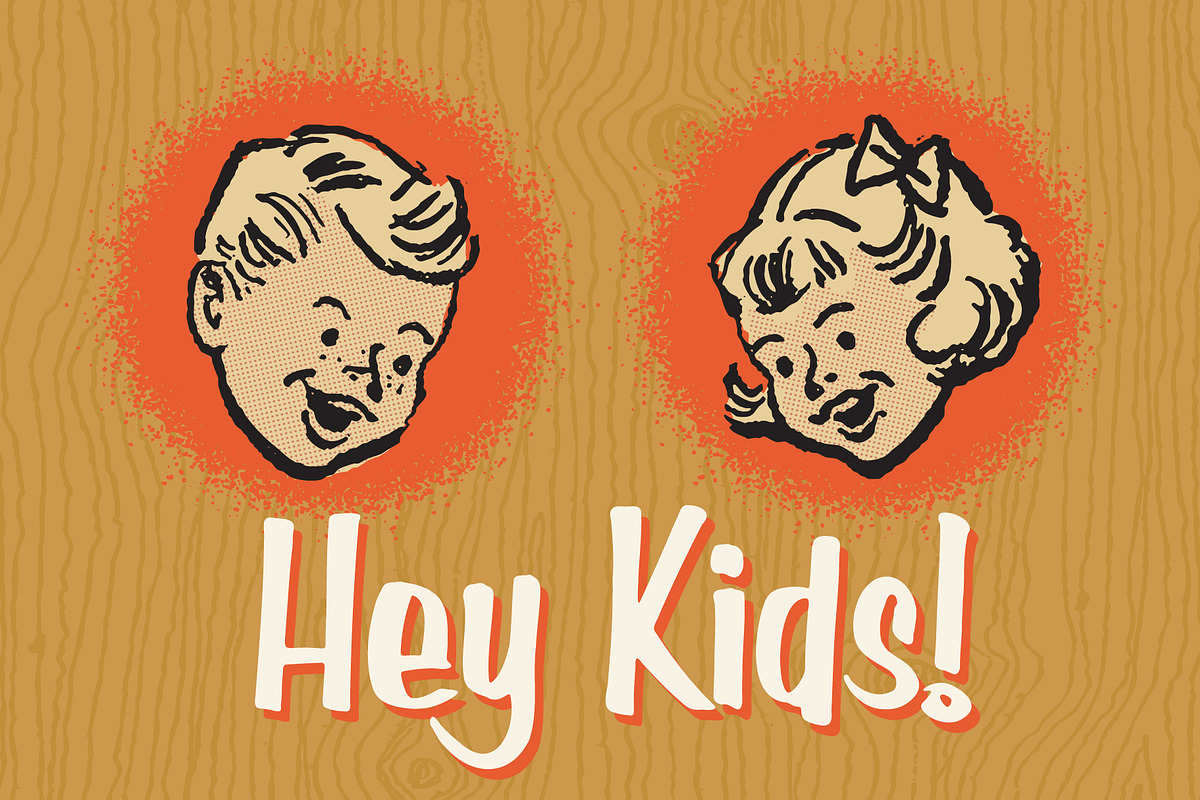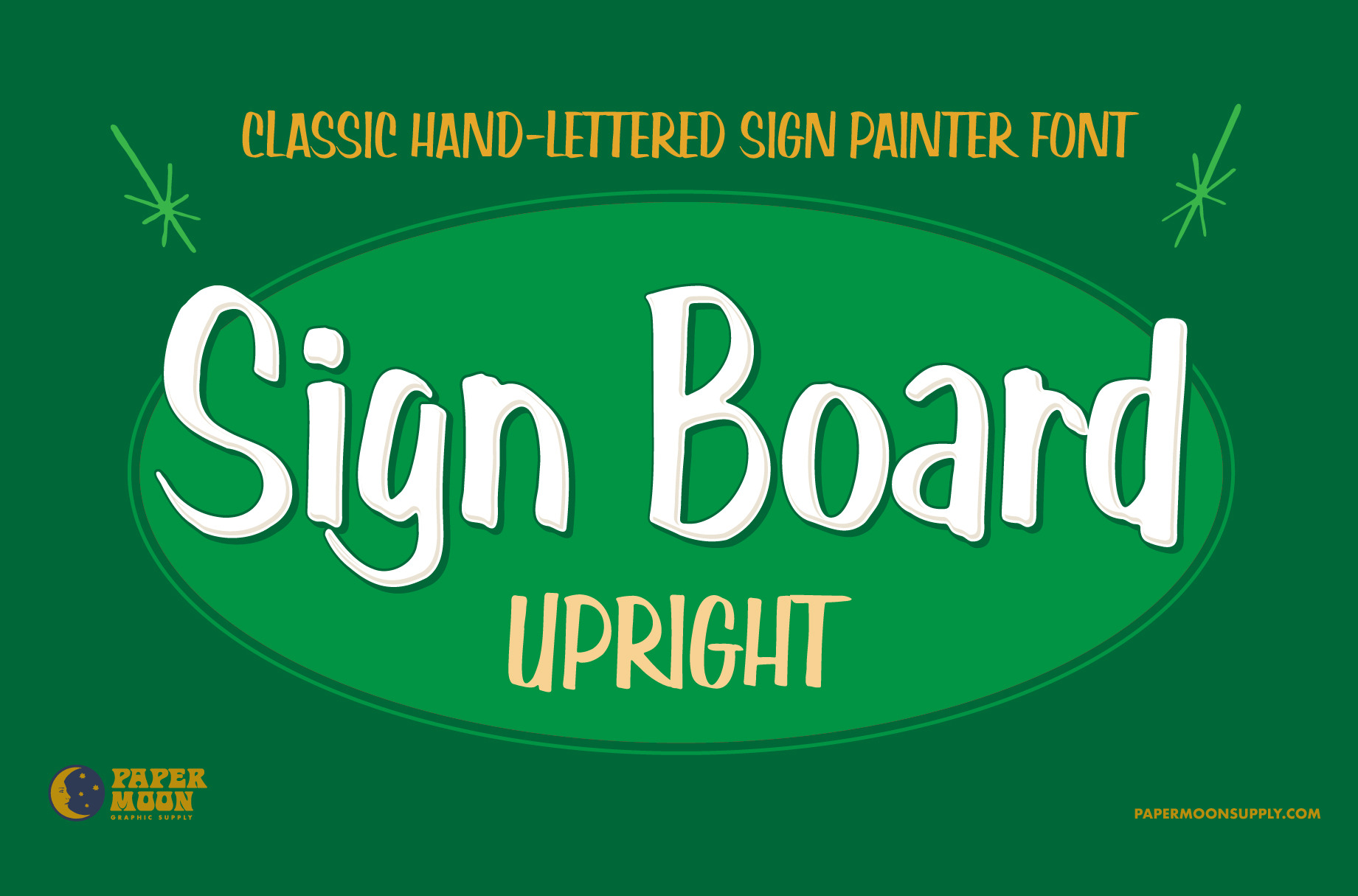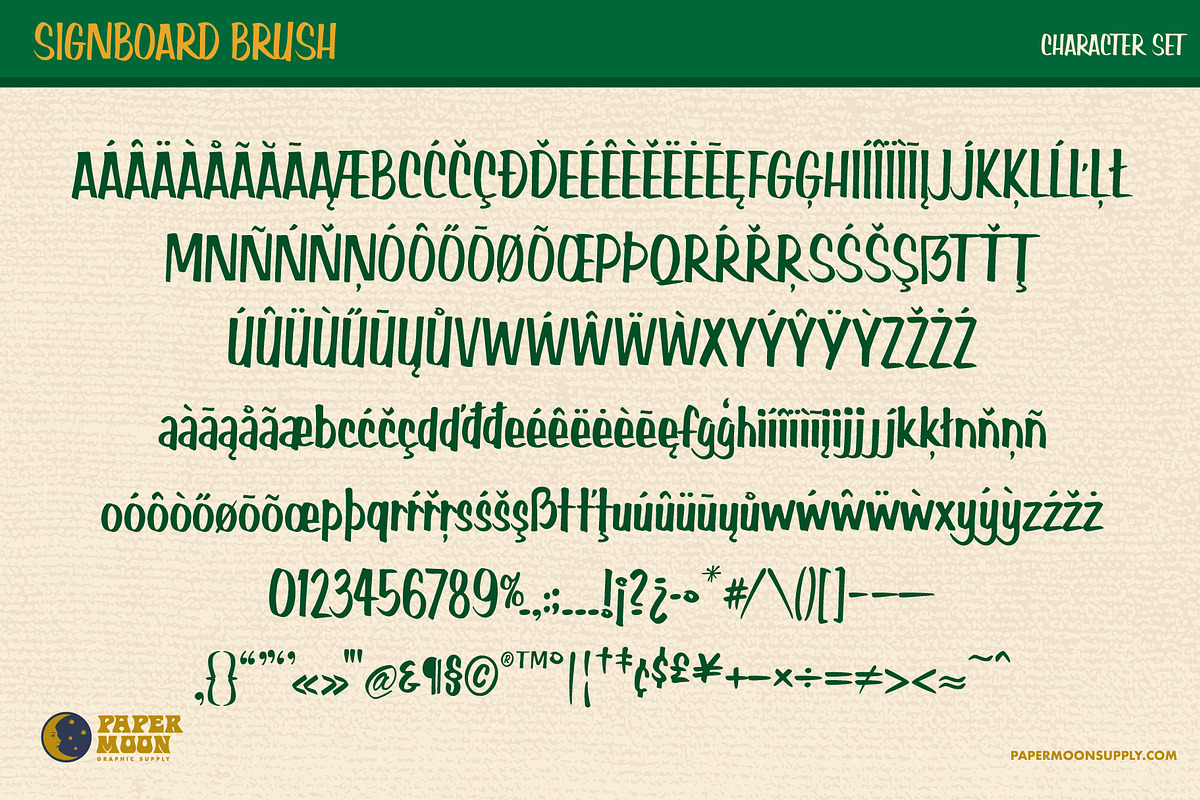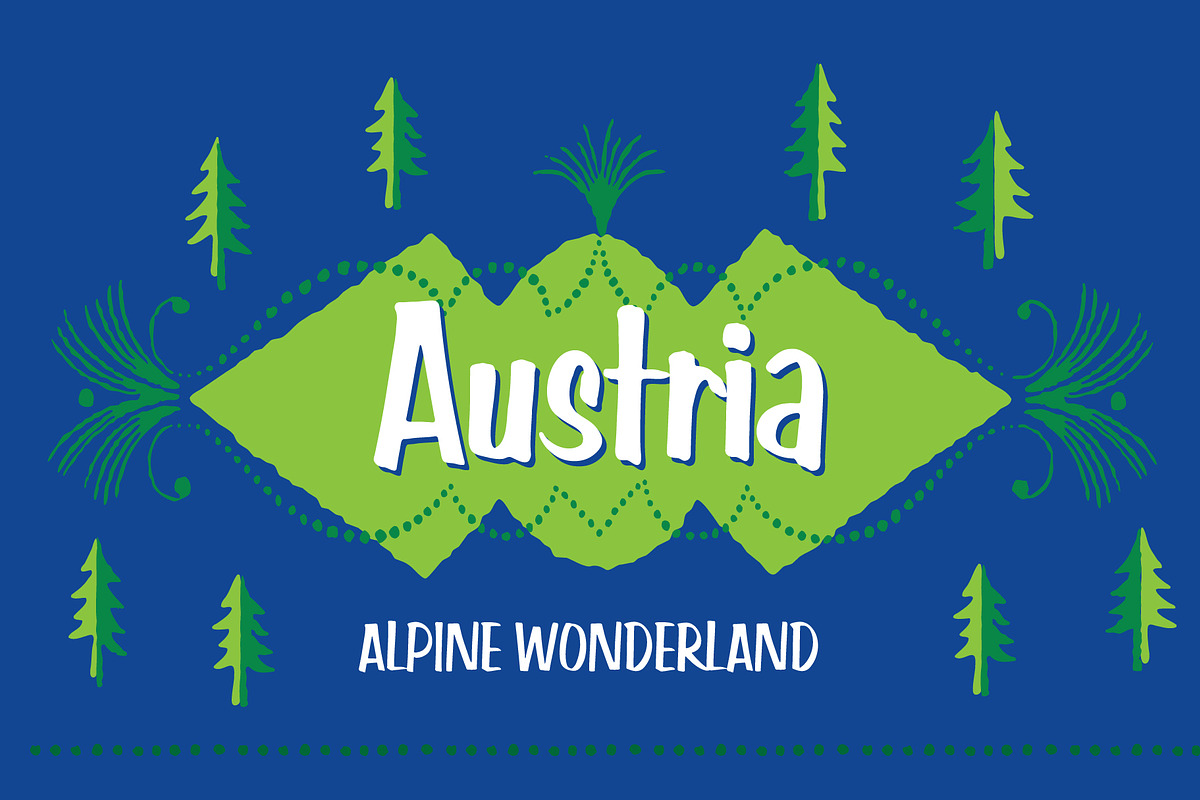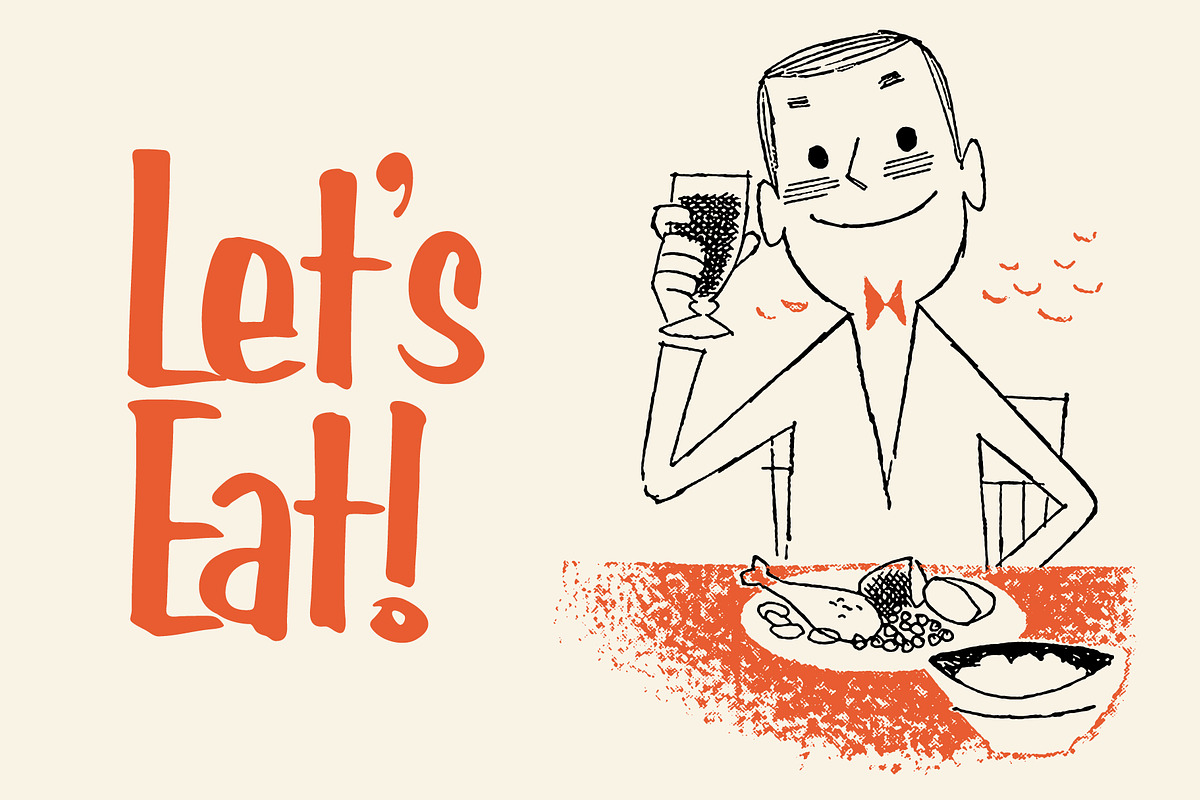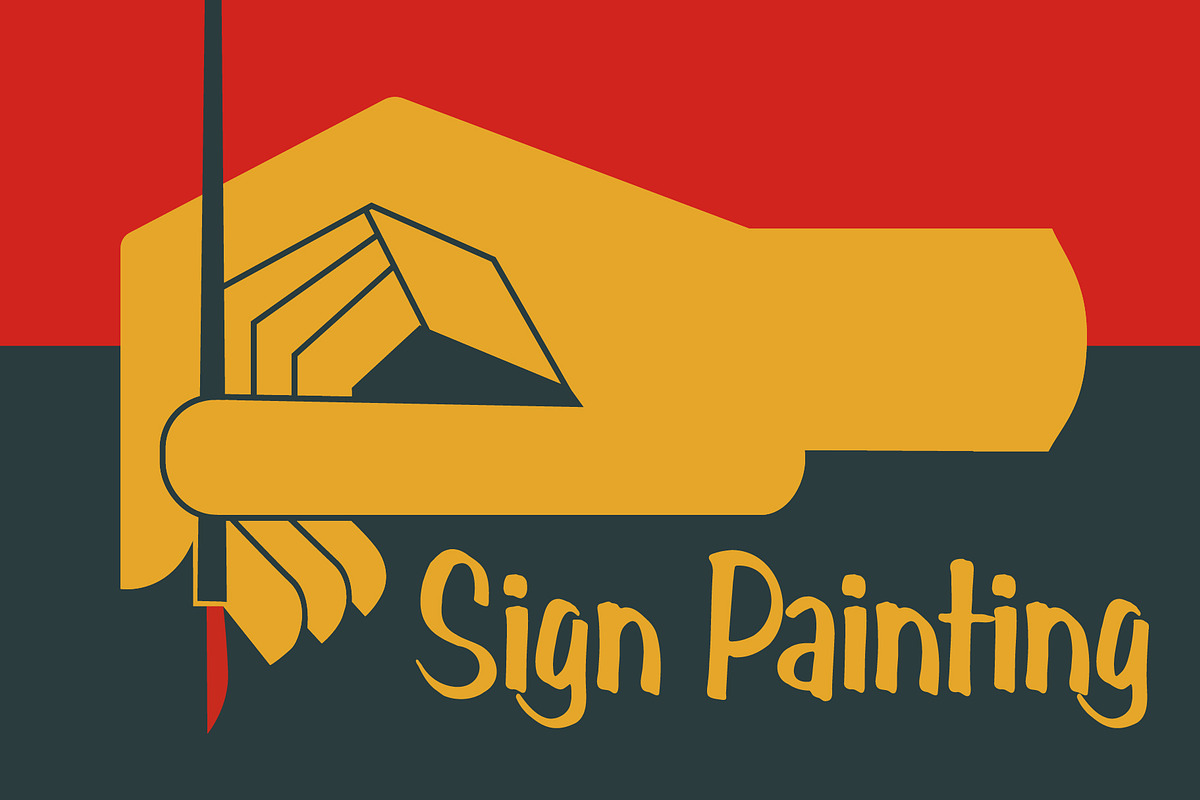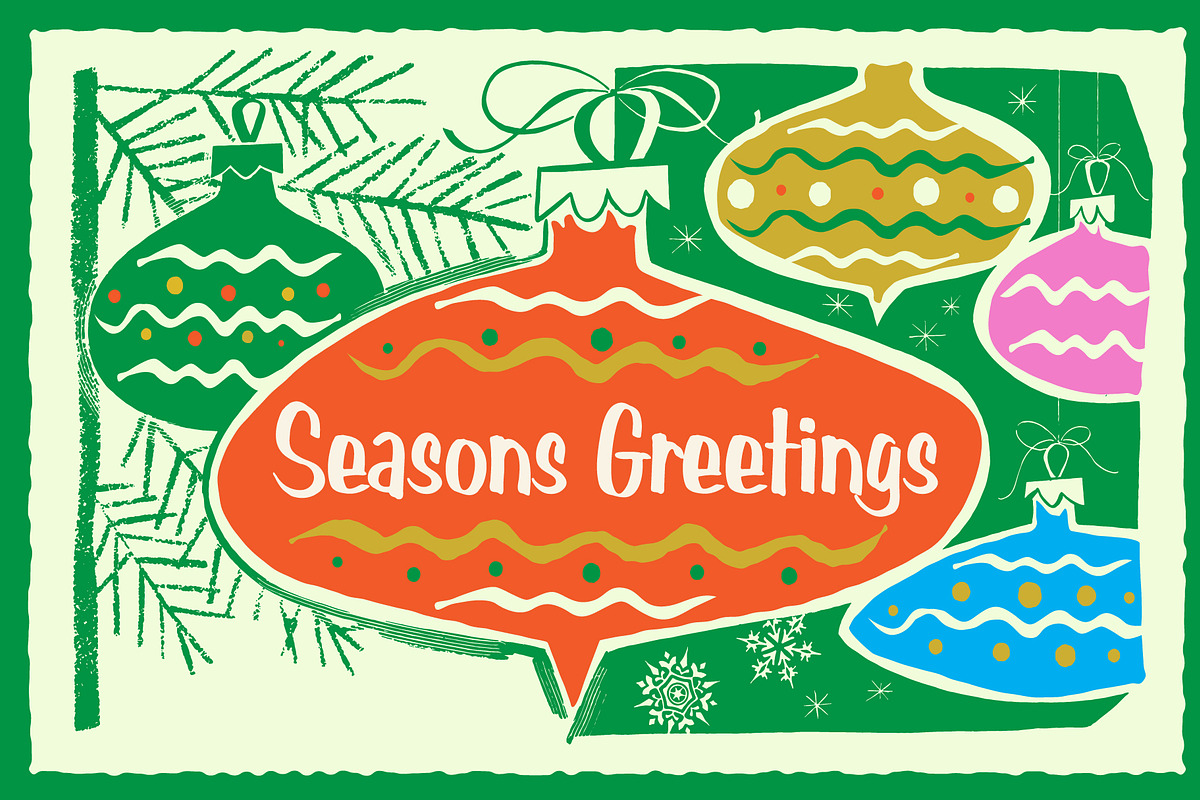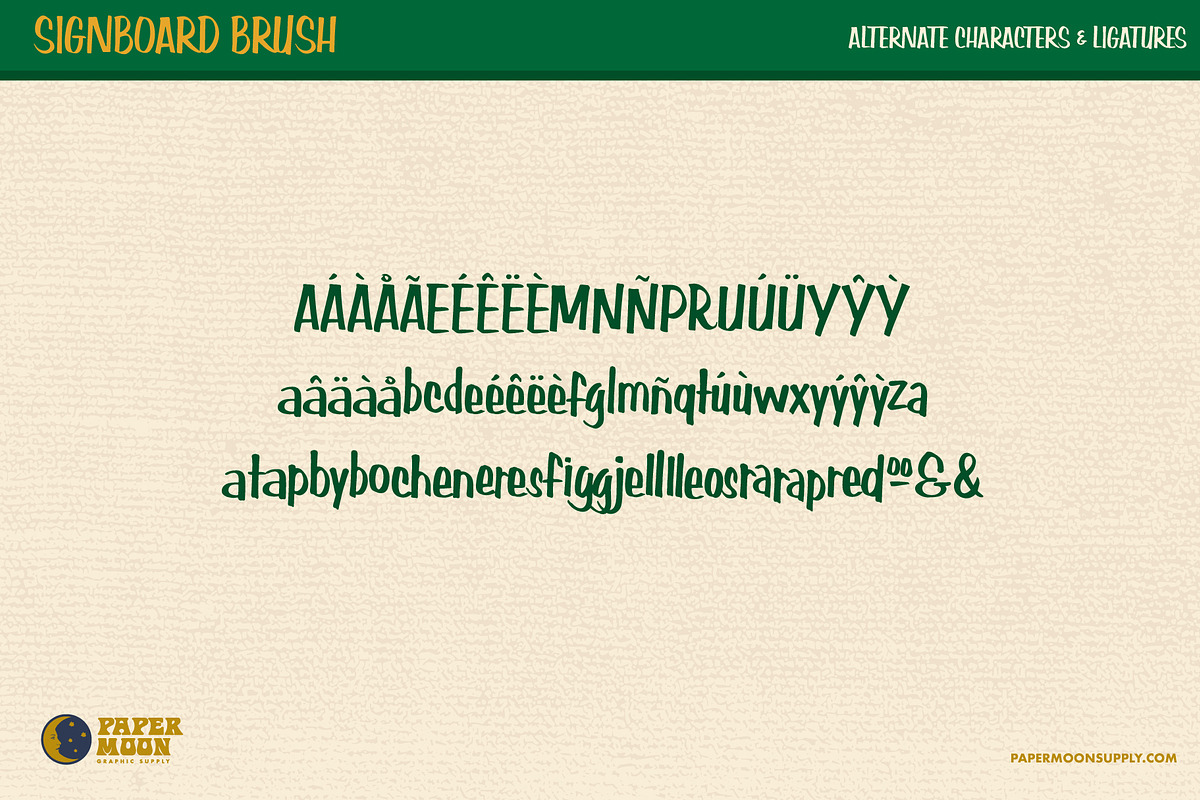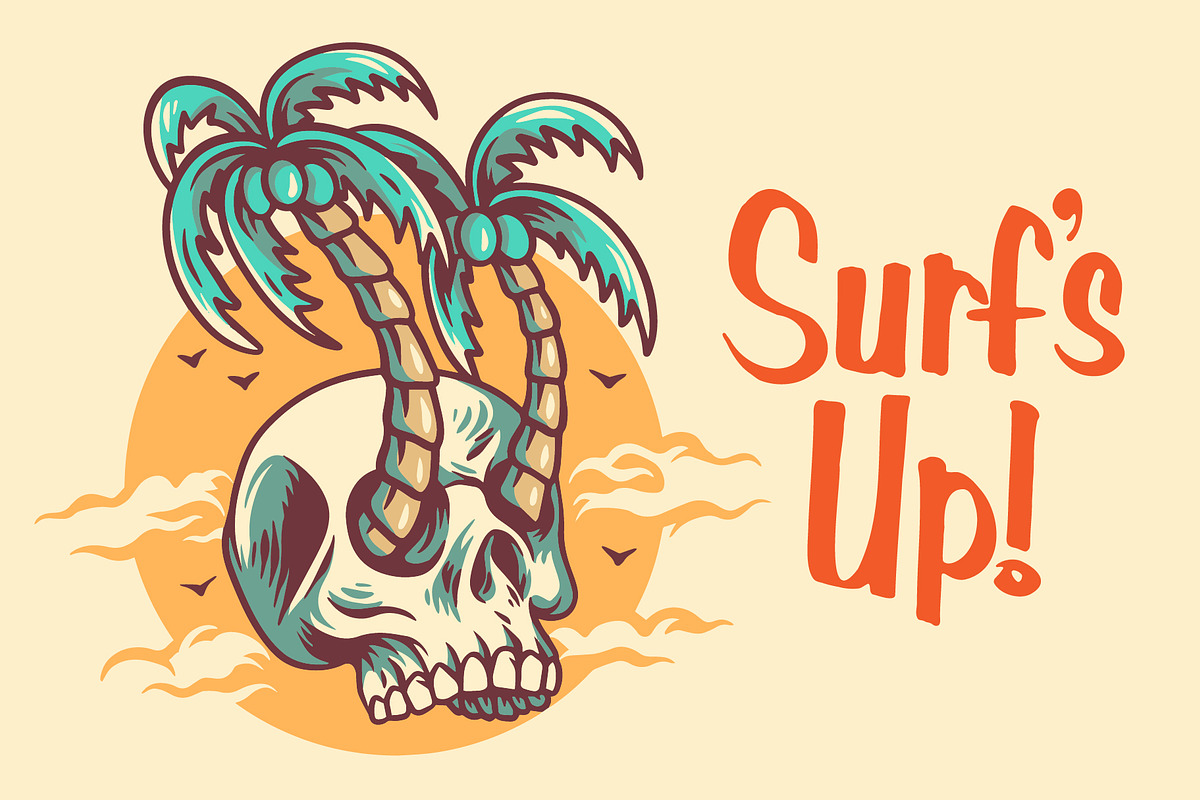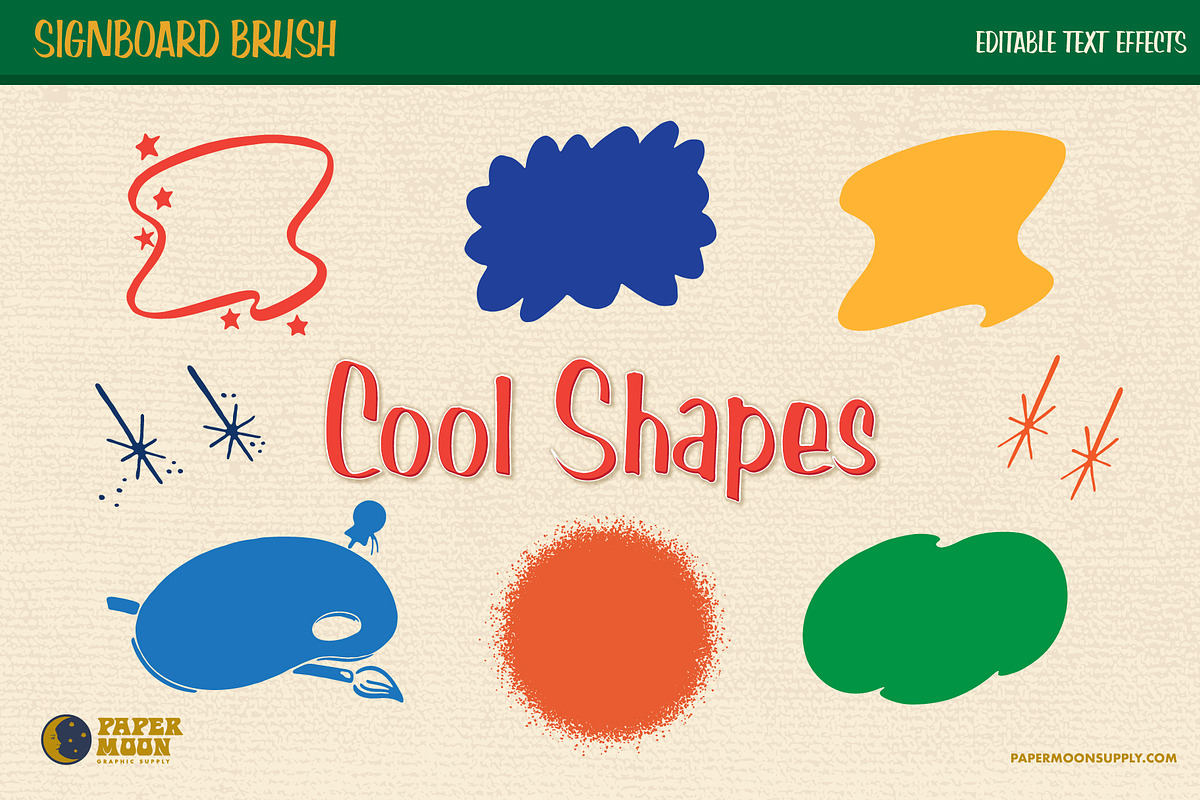
Signboard Upright Sign Painter Font
PM Signboard Upright
A new sign painter brush font inspired by the hand-painted vintage lettering used on posters, signs, banners, and movie titles.
- Complete alphabet, number, and punctuation sets
PM Signboard Upright was developed by award-winning illustrator and designer Scott Banks.